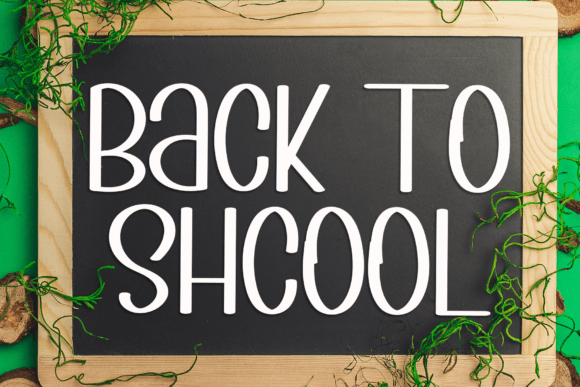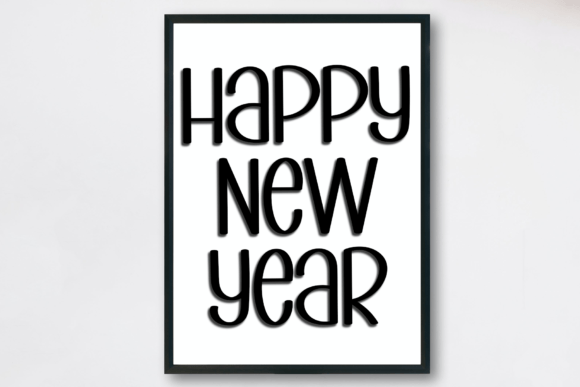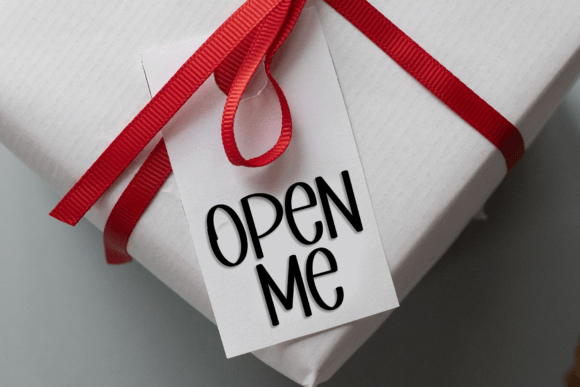
Introduction to Highlands Font
Have you ever stumbled upon a design element that instantly transports you to a winter wonderland, filled with festive cheer and joyful memories? For me, that moment happened when I discovered the Highlands Font. Its whimsical charm and playful flair evoke the spirit of the holiday season, making it the perfect addition to any creative project.
As a valuable resource for designers, the Highlands Font offers a high-quality, PUA-coded solution for adding a touch of elegance to your designs. With its unique glyphs and ligatures, you can easily create eye-catching greeting cards, gift labels, and other holiday-themed projects that exude a sense of warmth and nostalgia. Whether you’re working on a personal or commercial project, this font is sure to bring a smile to your face and a touch of magic to your design.
Key Features of Highlands Font
- High-quality vector design, suitable for a wide range of creative projects, including logos, icons, and graphics.
- Unique characteristics, including intricate details and a rustic feel, making it perfect for projects with a natural or outdoor theme.
Honest Review: Highlands Font
I recently stumbled upon the Highlands Font while working on a creative project and I must say, I was impressed. As a designer, I’m always on the lookout for high-quality fonts that can elevate my design work.
- ✨ Unique and elegant design style that’s perfect for outdoor-themed projects
- ⚠️ Limited language support, which may be a concern for designers working on multilingual projects
- ⚠️ Not suitable for projects requiring bold or condensed font styles
Overall, I’m quite impressed with the Highlands Font. It’s a great addition to any designer’s toolkit, and its elegant design style makes it perfect for creative projects. While it has some limitations, I believe it’s a valuable resource for designers looking for a high-quality font for their outdoor-themed projects.
The Highlands Font is ideal for use in business presentations, marketing materials, and creative projects. Its high-quality design and transparent background make it perfect for use in logos, branding materials, and website design.